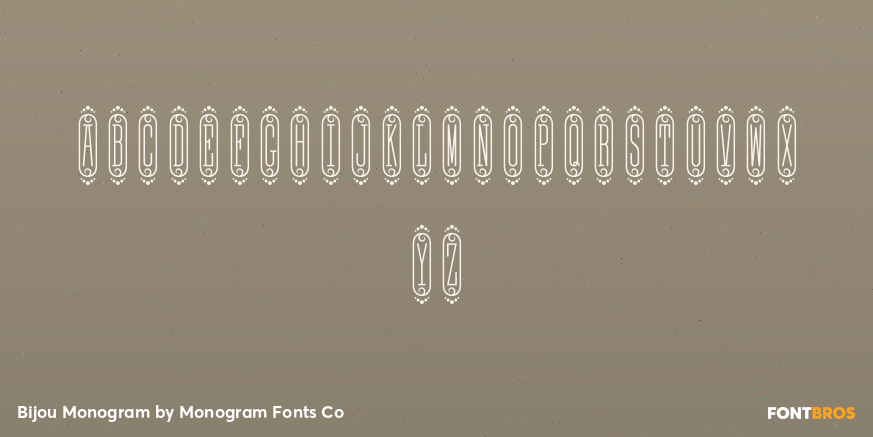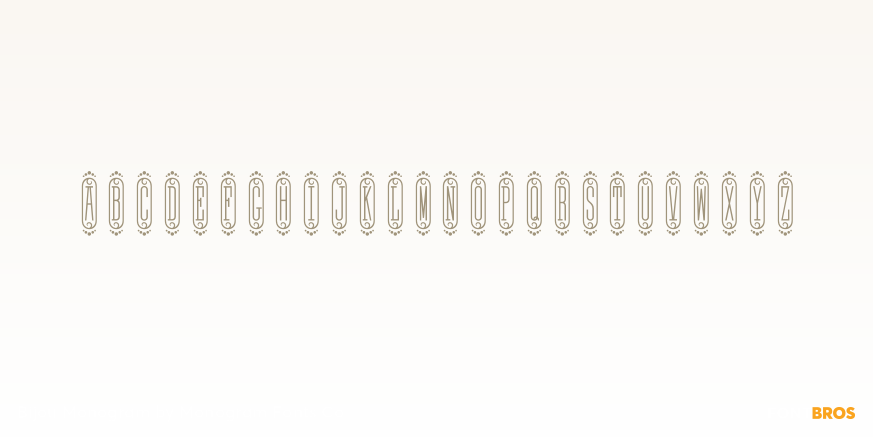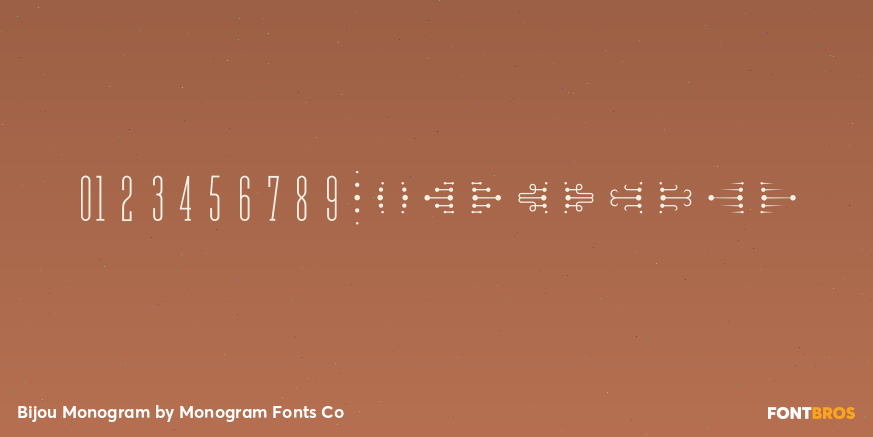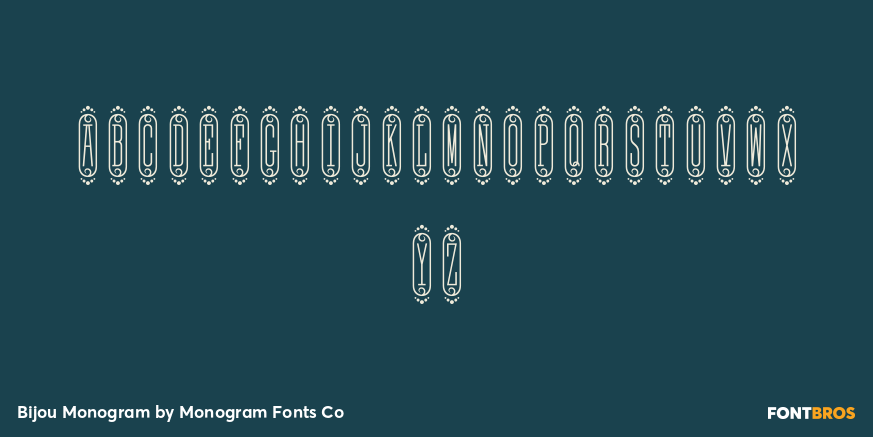
Bijou Monogram
Font Family by Monogram Fonts Co
The inspiration source for Bijou Monogram is a cameo alphabet from a vintage embroidery publication. This unique design has been redrawn and expanded to include smallcaps, numerals, dividers, and complimentary bracketing designs for your typesetting use and enjoyment. Bijou Monogram supports one, two, three letter monograms, and numbered monograms (allowing commemoration, memorial, and other styles of labeling). It's a vintage look that works well for a wide variety of classic personalization settings.